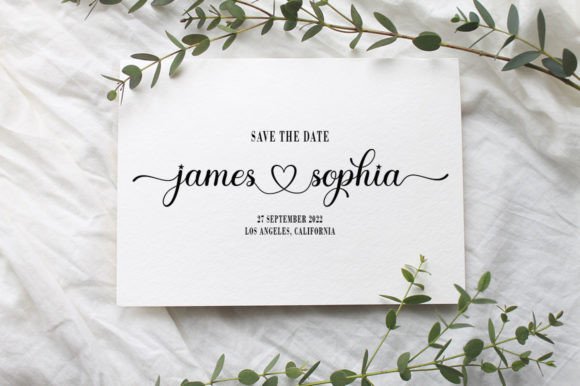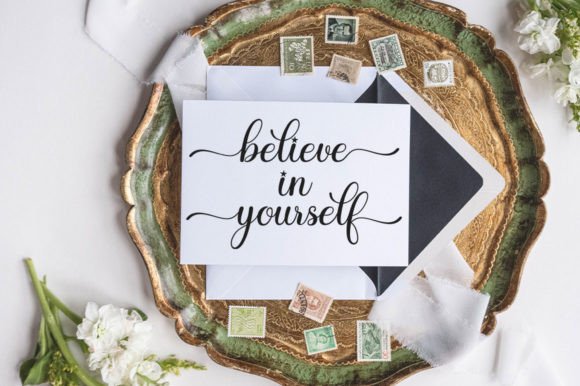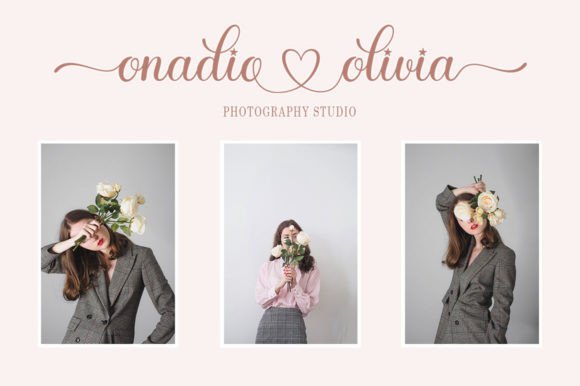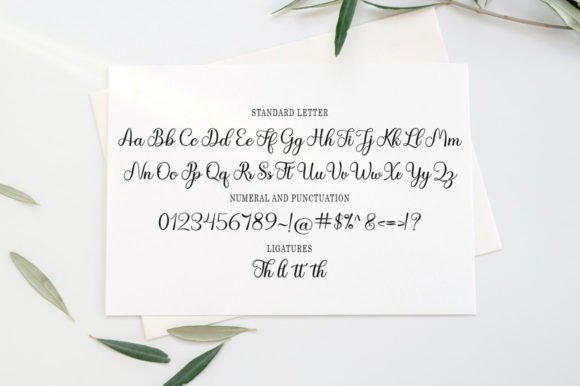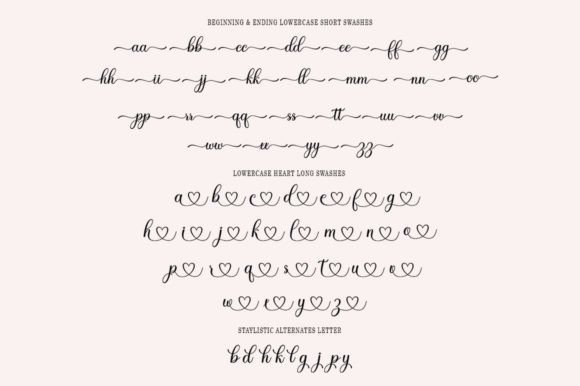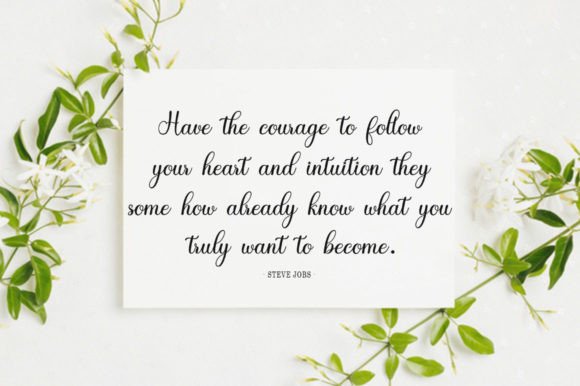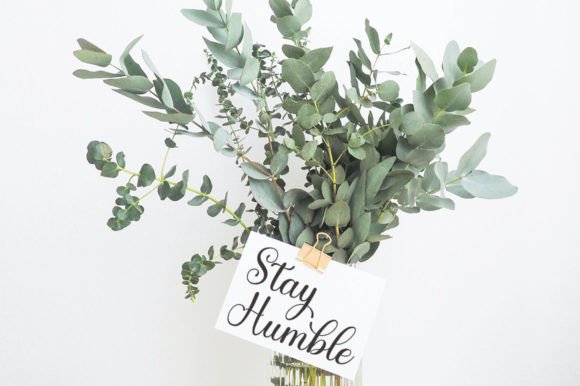
Baby Boho Font
About Baby Boho Font
**Baby Boho Font: Sweet and Playful Handwritten Script**
Introducing “Baby Boho,” a beautiful and sweet handwritten script font that adds a soft and playful touch to your design ideas. This font is versatile and looks great on a variety of projects, bringing a sense of fun and romance to your creative endeavors.
**Soft and Playful Aesthetic:**
Baby Boho is crafted with a soft and playful aesthetic, making it perfect for projects that require a touch of sweetness. The gentle strokes and charming design add a delightful quality to your text.
**Versatile Design Applications:**
This font adapts seamlessly to various design applications. Whether you’re working on greeting cards, invitations, posters, or any creative project, Baby Boho brings a playful and romantic vibe to the table.
**Perfect for Fun and Romantic Projects:**
Add a fun and romantic touch to your projects with Baby Boho. It’s an ideal choice for designs that aim to convey joy, love, and a lighthearted atmosphere.
**Beautiful on a Variety of Design Ideas:**
Explore the beauty of Baby Boho on a range of design ideas. From wedding invitations to playful posters, this font enhances the visual appeal of your creations with its charming script.
**Soft and Inviting Lettering:**
The soft and inviting lettering of Baby Boho makes it suitable for a variety of contexts. Use it to create welcoming and warm messages that capture attention.
**Enhance Greeting Cards and Invitations:**
Elevate your greeting cards and invitations with the sweet touch of Baby Boho. The handwritten script adds a personal and endearing quality to your messages.
**Create a Playful Atmosphere:**
Infuse a playful atmosphere into your projects with Baby Boho. The font’s charm and whimsy make it a delightful addition to designs that aim to bring joy and smiles.
**Capture Romance in Your Designs:**
Whether it’s a wedding project or a romantic-themed design, Baby Boho captures the essence of romance with its soft and sweet script. Let it be the font that expresses love and tenderness.
Baby Boho is more than just a font; it’s a design companion that brings sweetness and playfulness to your creative endeavors. Allow this beautiful handwritten script to be the element that adds joy and romance to your projects, creating a delightful and memorable visual experience.